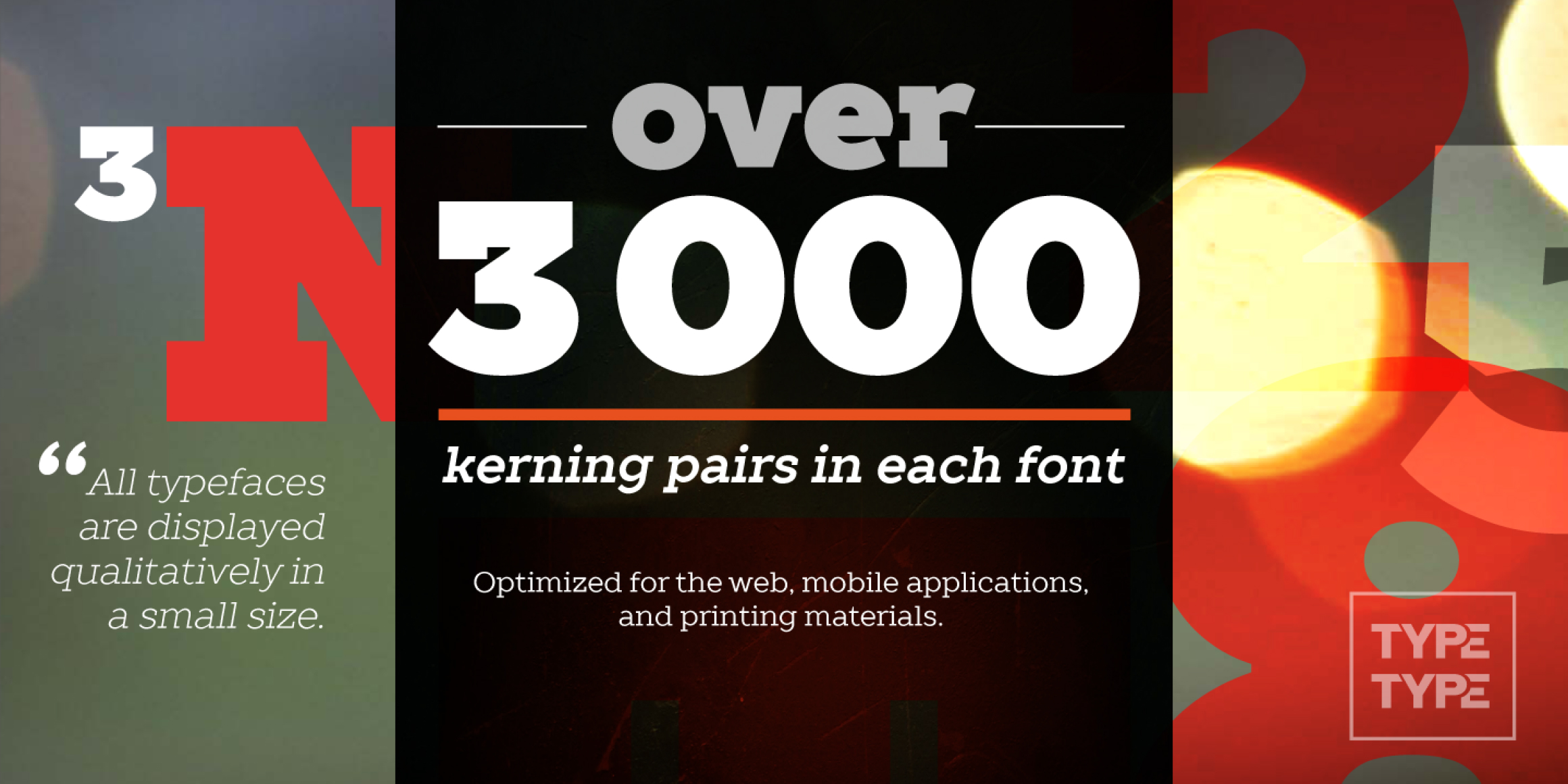
TT Slabs Basic
World needs a beautiful, simple and high-quality typeface. We need simple and geometric fonts. Slab is a form of serifs, which gave its name to the fontfamily. If you are looking for a versatile font with wide proportions for your projects — TT Slabs will suit you perfectly.